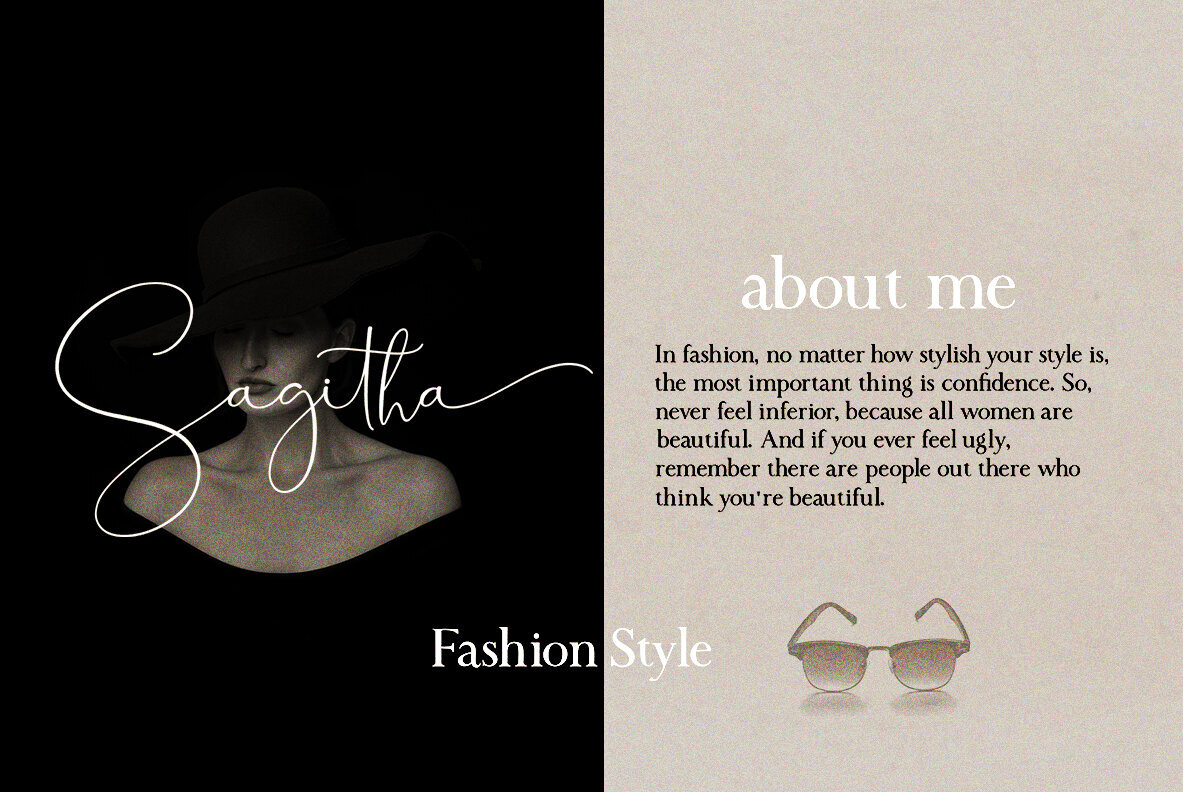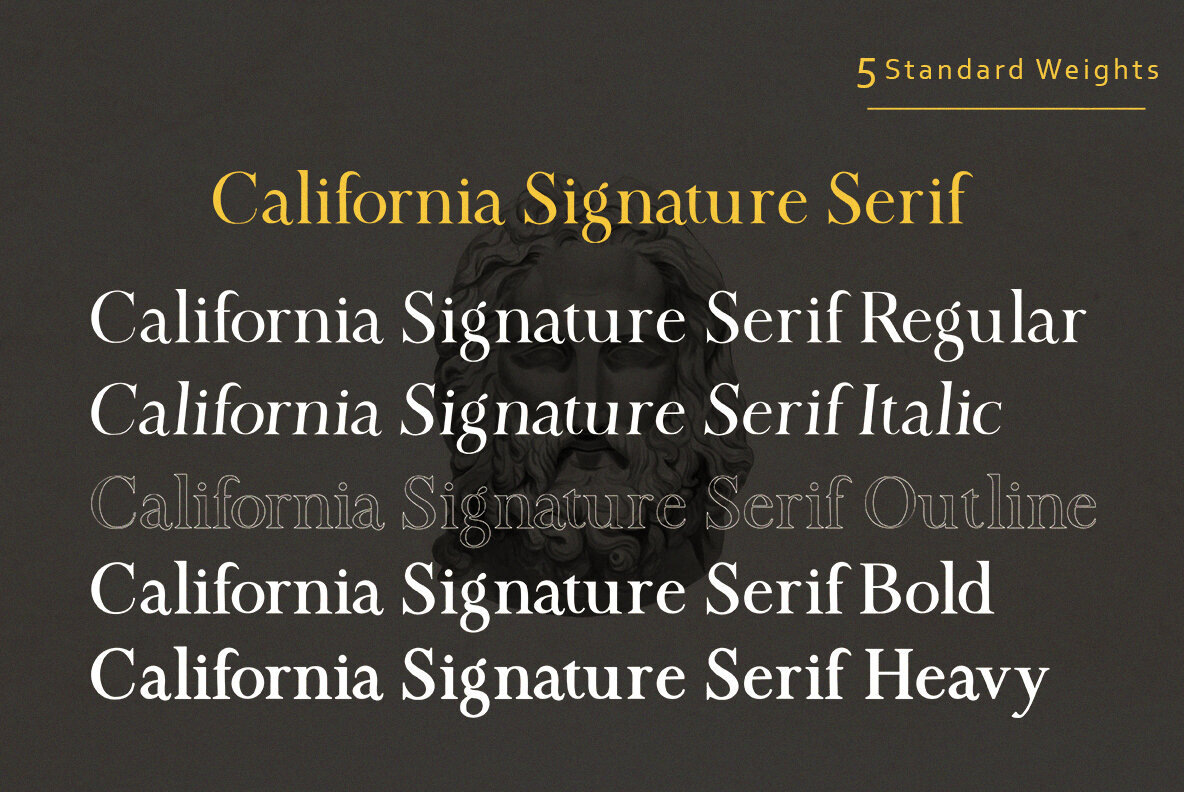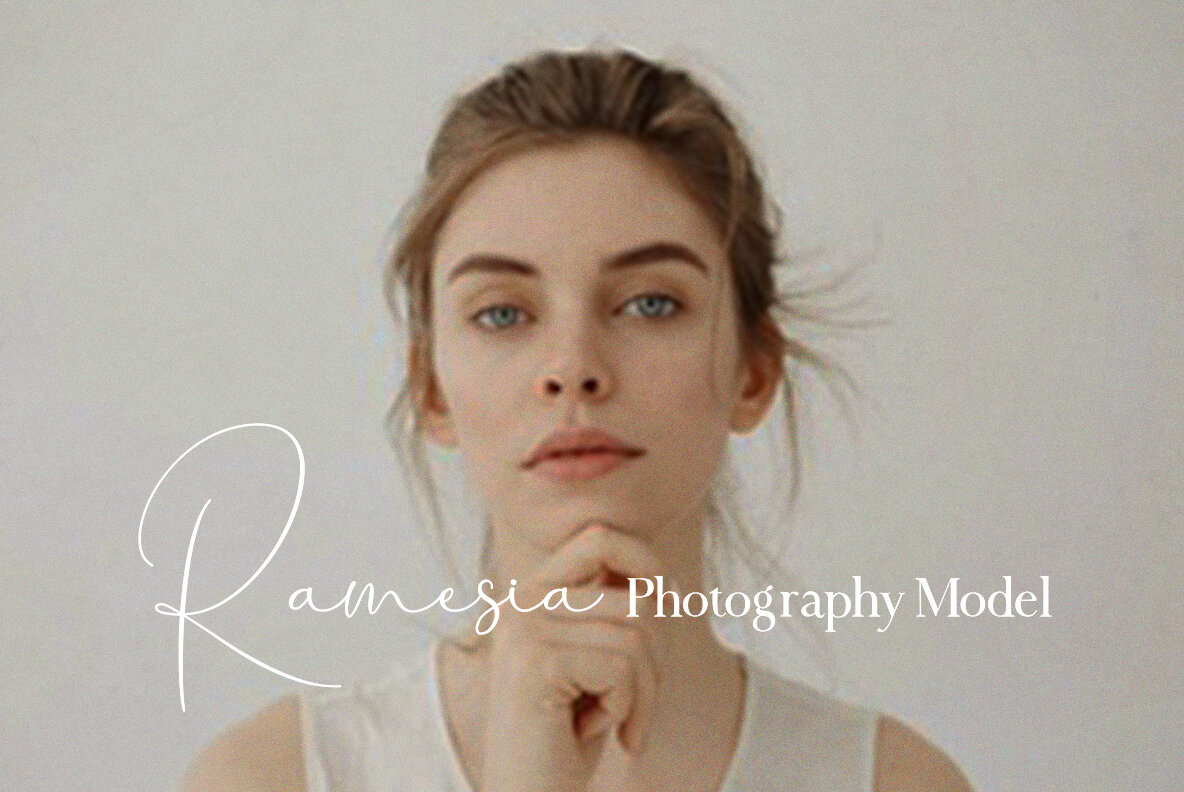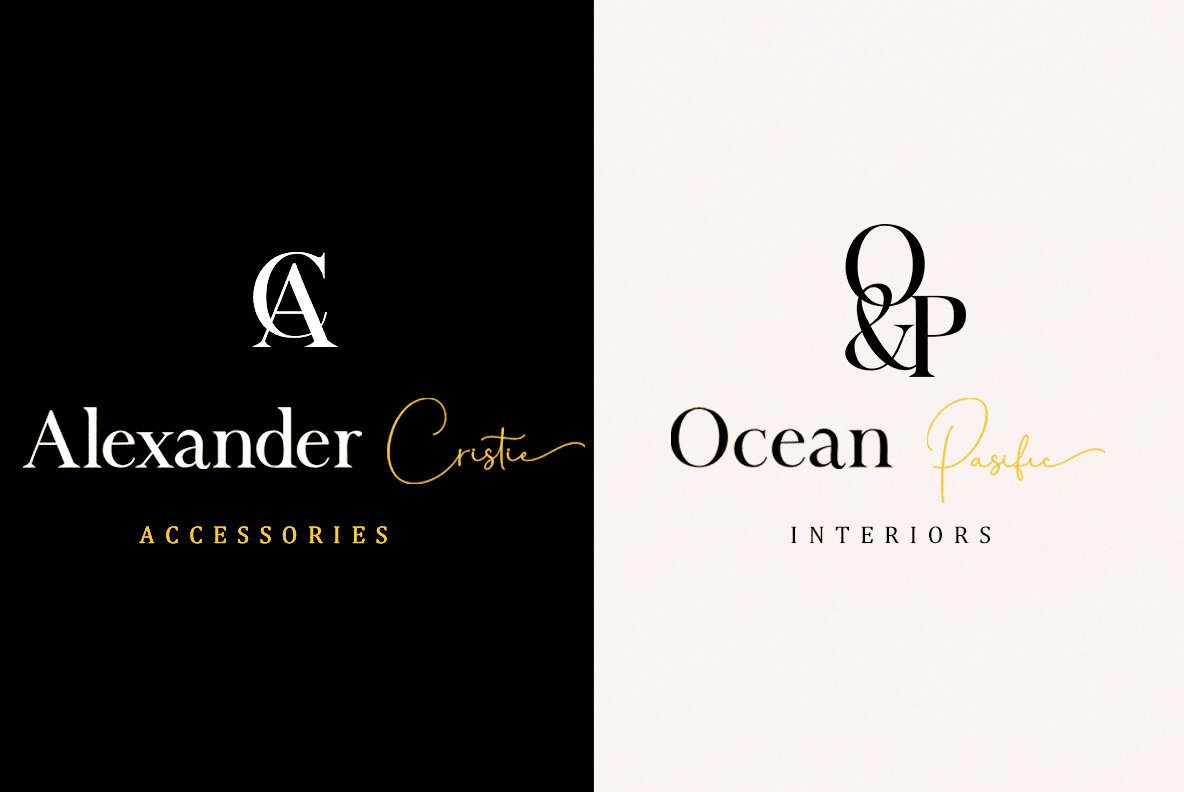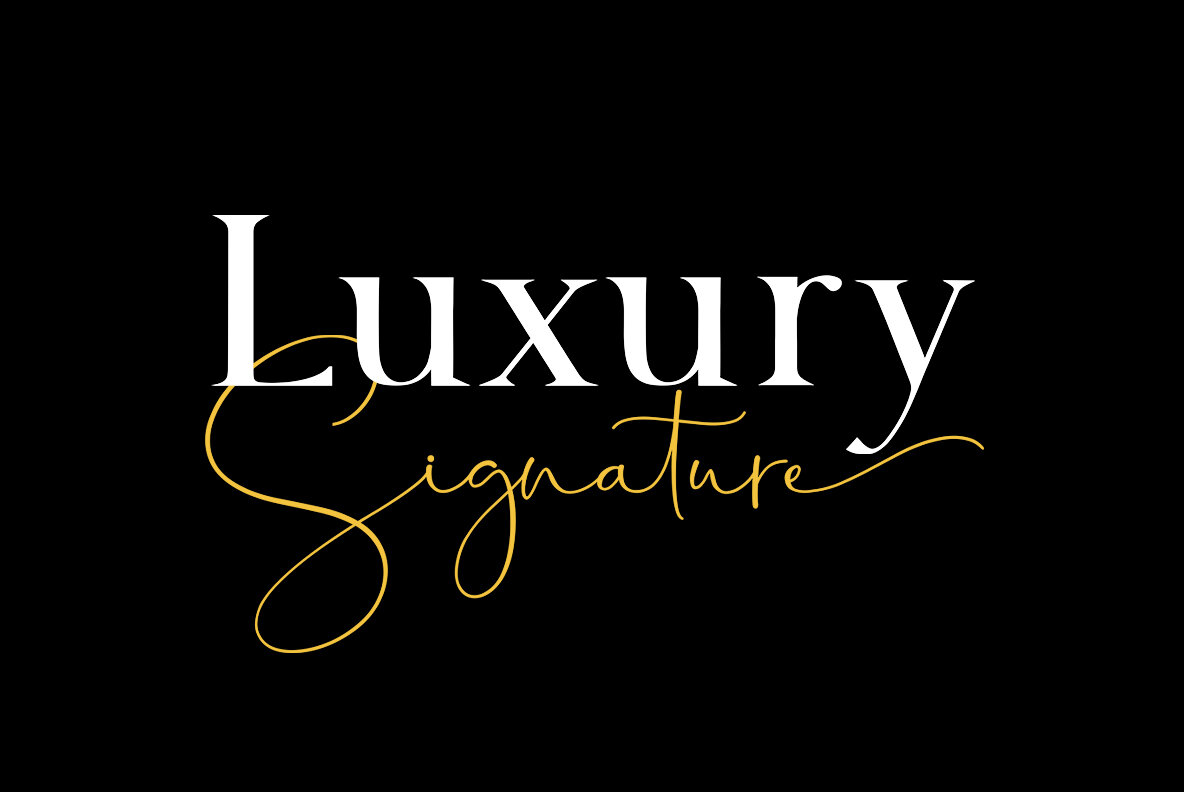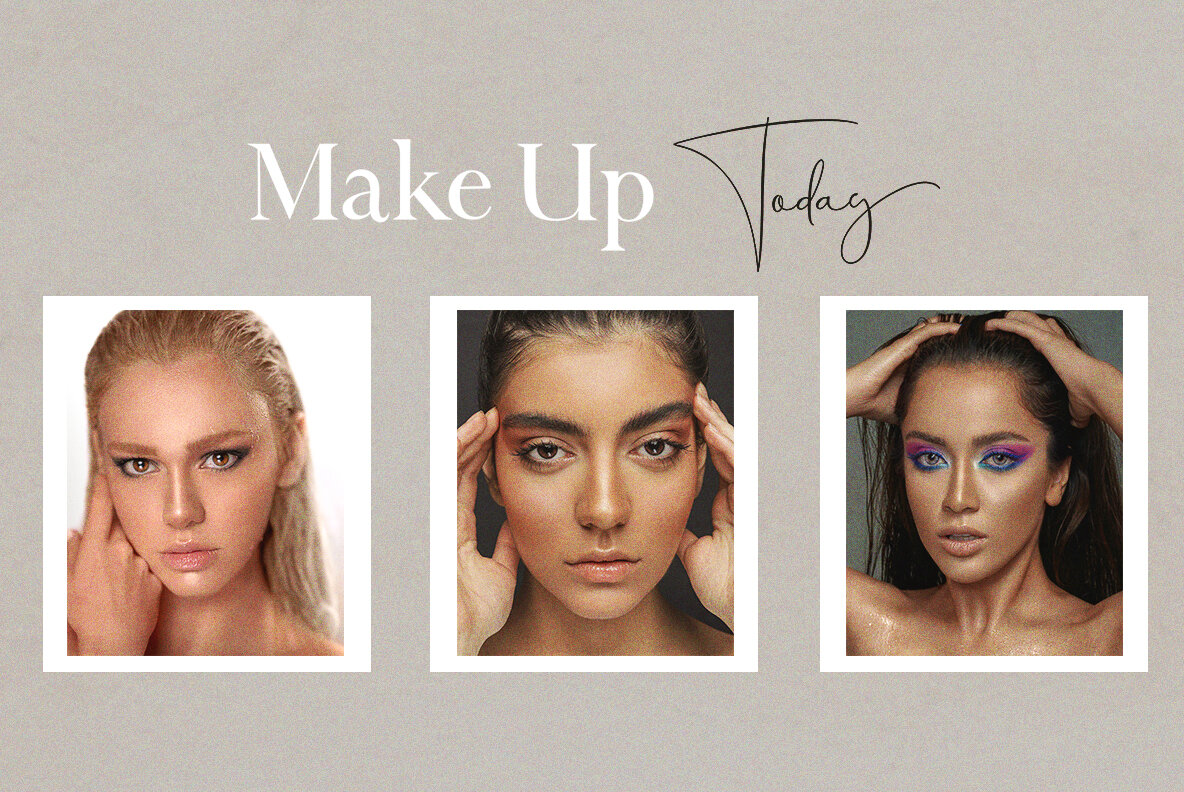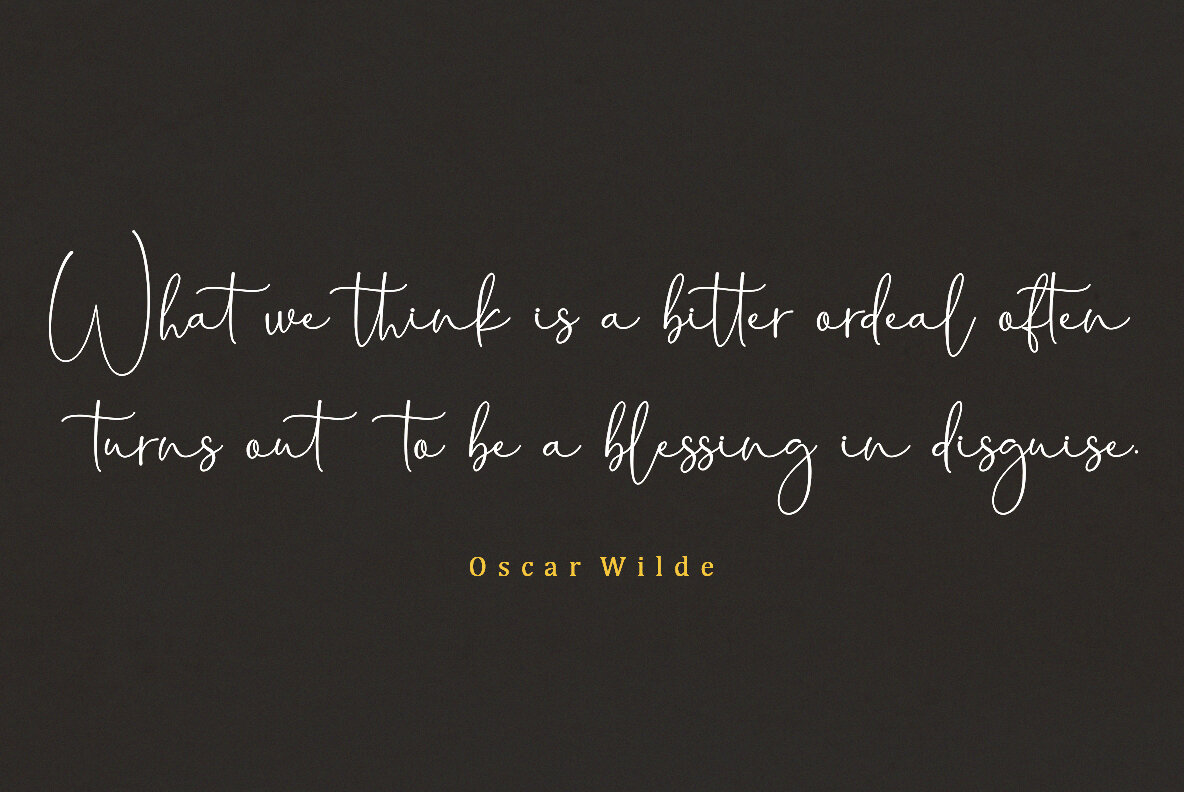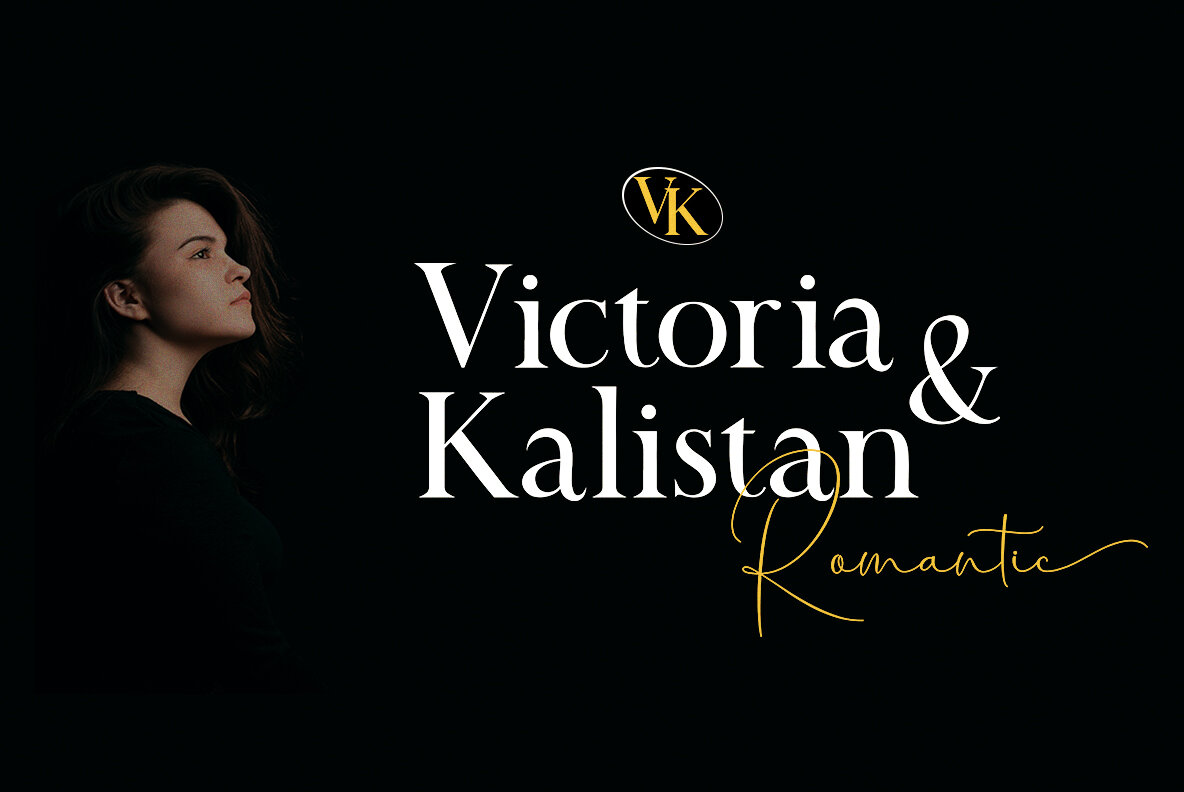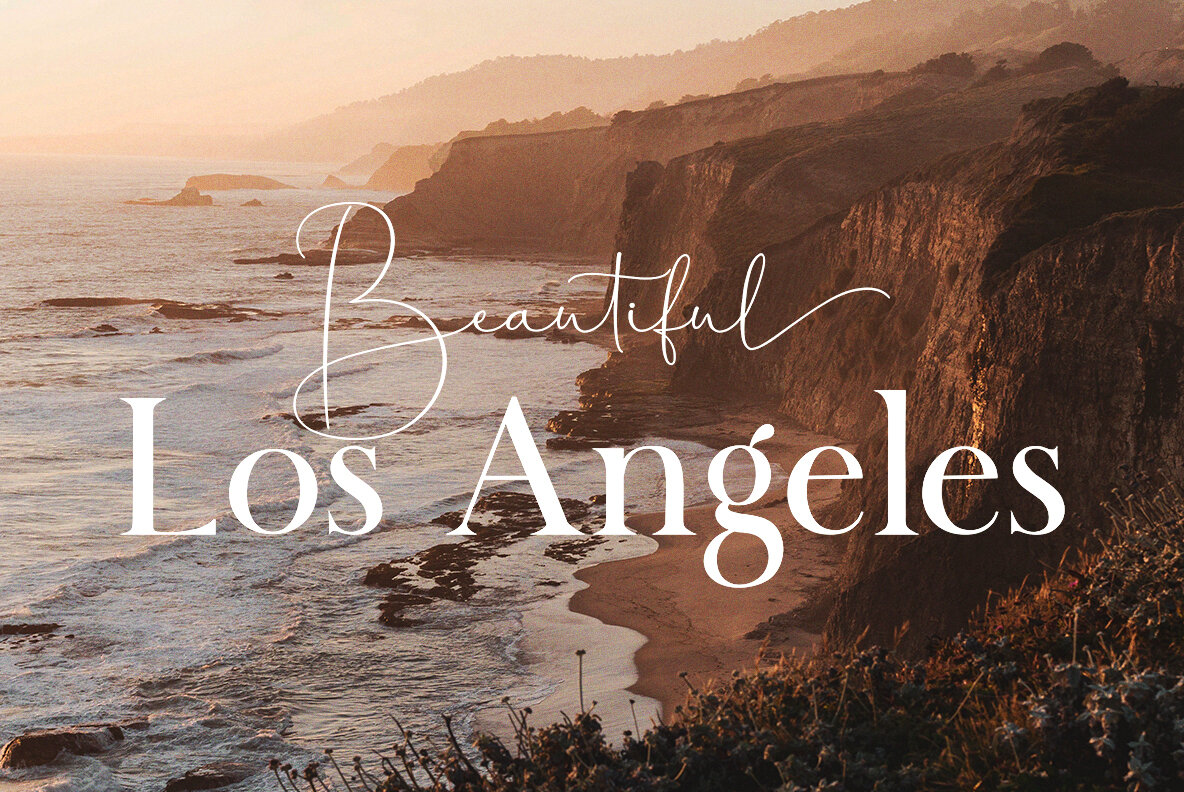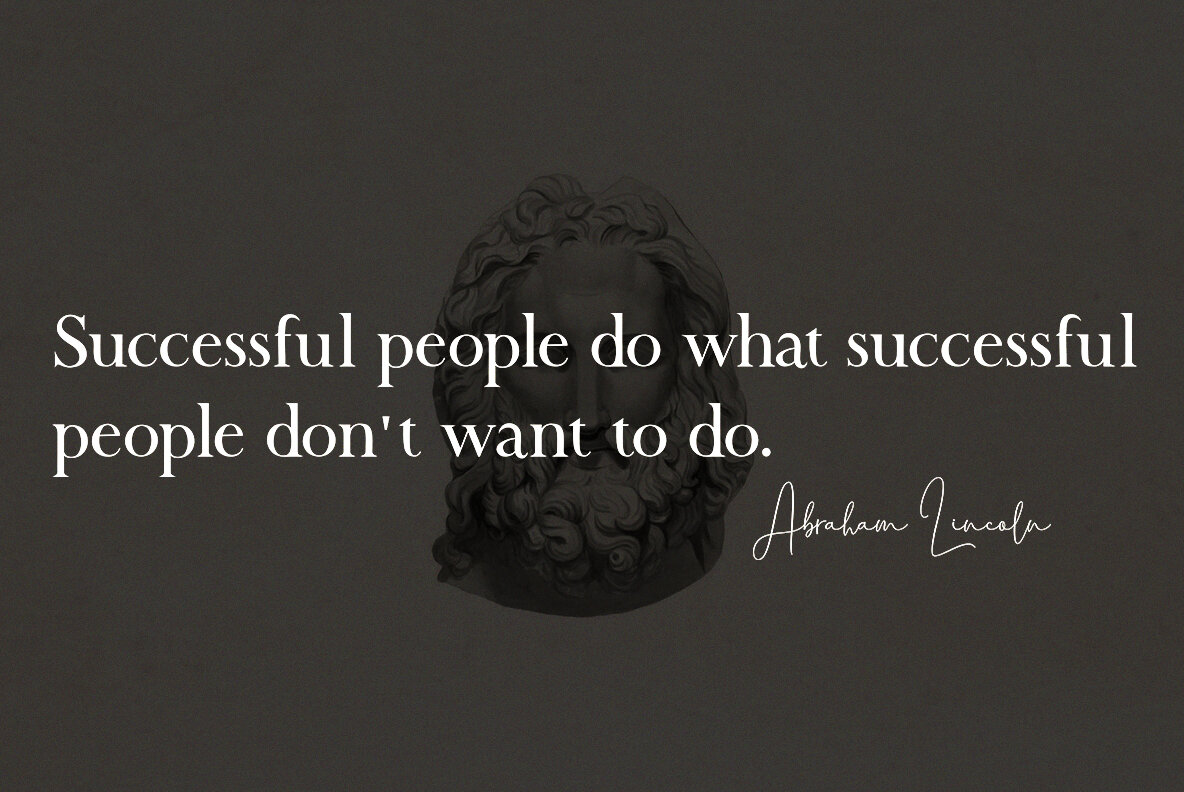
California Signature Font
California Signature by Bosstype Studio offers a perfect blend of luxury and uniqueness with its set of seven modern fonts. Featuring both upper and lowercase serifs along with a stylized script, these fonts are designed to add elegance to any project. The subtle curves of the serifs enhance the feminine feel, making California Signature an excellent choice for logos, social media posts, invitations, and other creative endeavors. Moreover, it includes multilingual support, allowing for diverse applications. California Signature supports a wide array of languages including English, French, Italian, Spanish, Portuguese, German, Swedish, Norwegian, Danish, Dutch, Finnish, Indonesian, Malay, Hungarian, Polish, Croatian, Turkish, Romanian, Czech, Latvian, Lithuanian, Slovak, and Slovenian.California Signature: A Blend of Luxury and Uniqueness